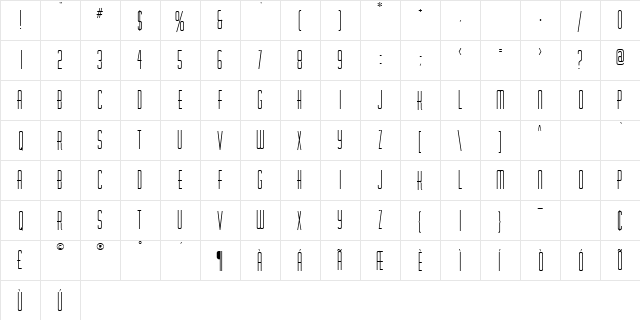
Tuxedo Verticle
Design Context for Tuxedo Typeface
Tuxedo offers clean, dependable letterforms without strong stylistic allegiance, making it a practical choice for designers who need flexibility.